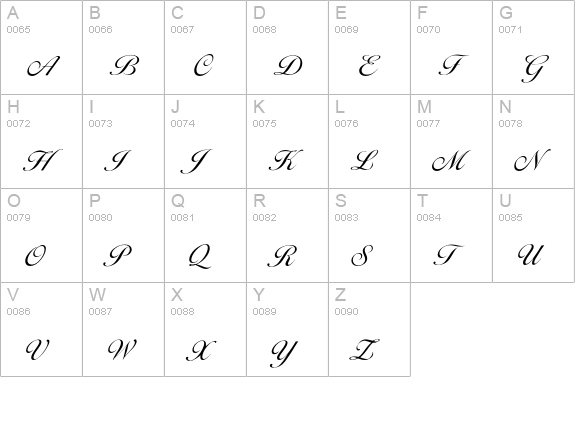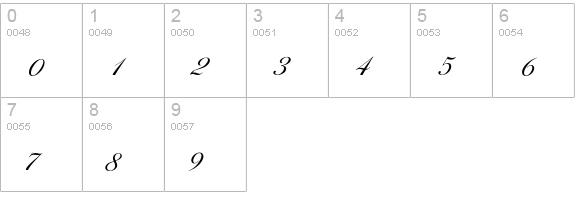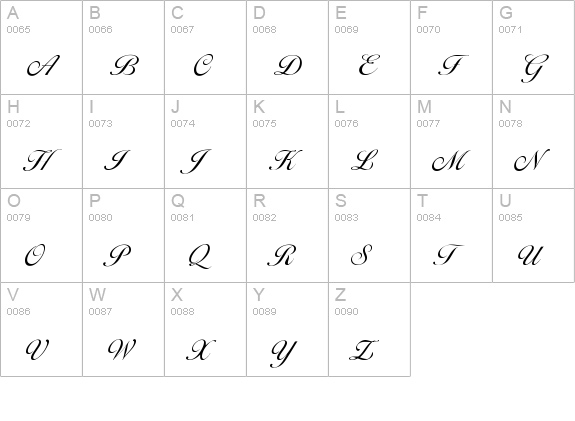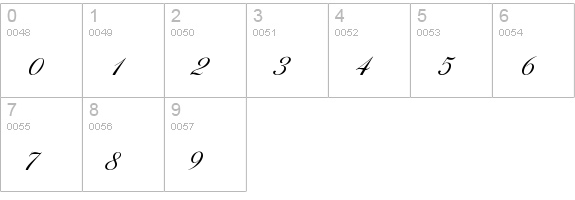
Ballantines-Light Font Details
Ballantines-Light is a refined, elegant variant in the Ballantines typeface family \xE2\x80\x94 well suited to elegant body text, refined sub-headings, and luxury branding.
Ballantines-Light is a sleek and elegant font that exudes sophistication and modernity. With its clean lines and subtle curves, this font is perfect for conveying a sense of professionalism and style in any design project. The light weight of the font adds a touch of delicacy and refinement, making it ideal for use in branding, logos, headings, and more. Best of all, Ballantines-Light is available for free download at FontsMarket.com. This means you can easily access this beautiful font and incorporate it into your designs without any cost. Don't miss out on the opportunity to enhance your projects with the timeless appeal of Ballantines-Light. Download it now and elevate your designs with this stunning font.